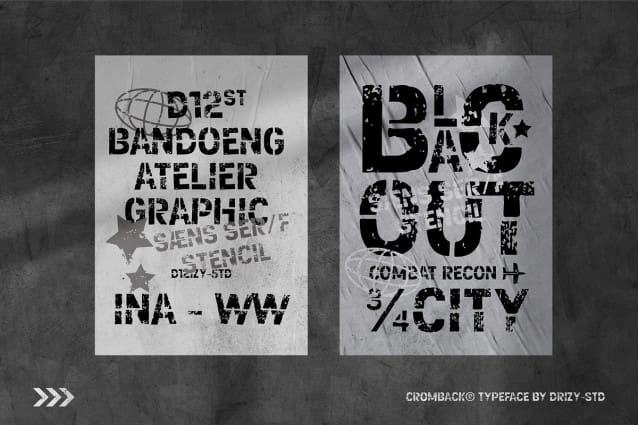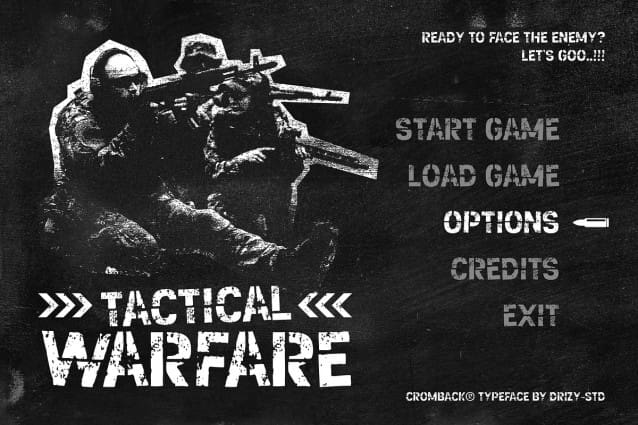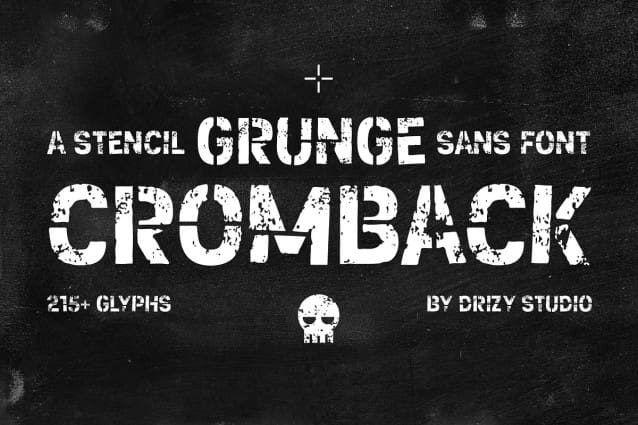
Cromback Stencil Font
Cromback Stencil Font is a typeface that exudes a rustic and earthy aesthetic. Its design incorporates textured elements reminiscent of soil or rough terrain, giving it a natural and organic appearance. The font’s characters often feature uneven edges and irregular shapes, enhancing its handcrafted feel. Cromback Soil is well-suited for projects seeking to convey a sense of authenticity, nature, or rustic charm. It can add a unique touch to various design applications, such as branding, packaging, posters, and environmental themes.